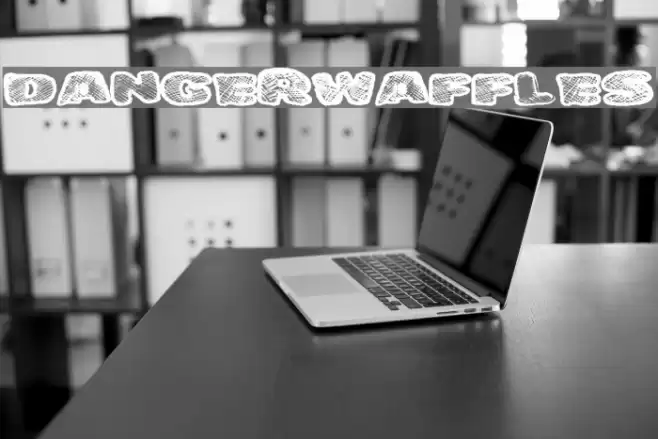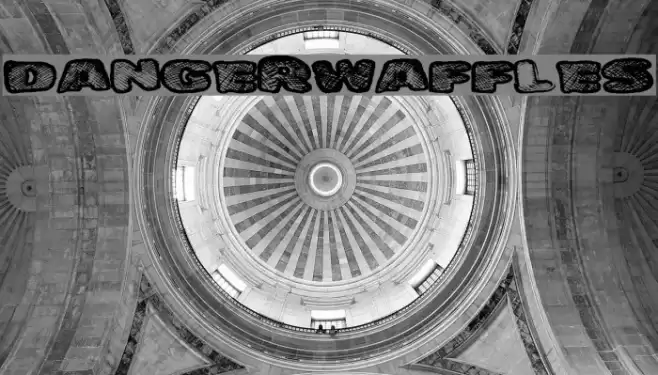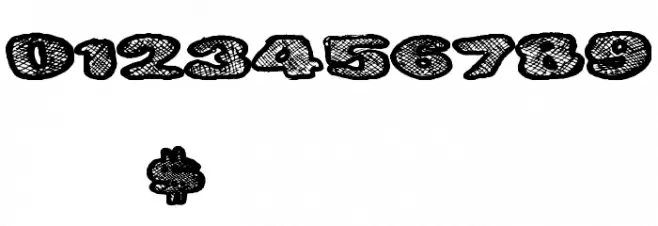
DangerWaffles Font
DangerWaffles Description
This font features a playful and bold design with a textured, hand-drawn appearance. Each character is filled with a crosshatch pattern, giving it a unique, sketch-like quality. The letters are rounded and chunky, contributing to a friendly and approachable aesthetic. The font maintains consistent thickness throughout, with a slightly irregular edge that enhances its casual and artistic vibe. It is well-suited for creative projects that require a touch of whimsy and personality.
A playful, textured font with a hand-drawn, sketch-like appearance from Uncategorized fonts.
- Proposed Projects: Ideal for children's books, comic strips, playful branding, and creative posters.
- Overall Style: Playful, Artistic